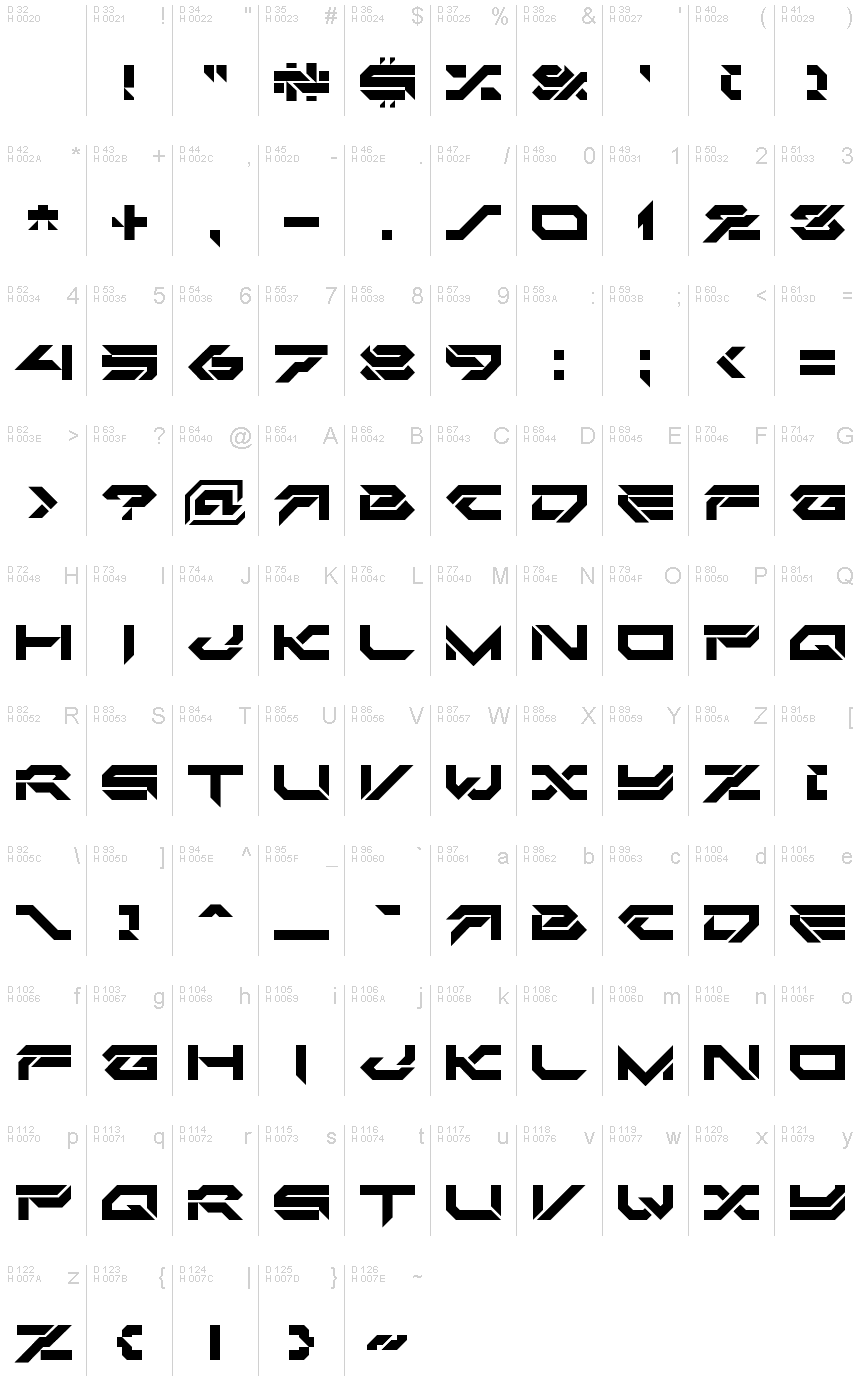
Critical Mass LDR Regular
Critical Mass LDR font is an extended techno typeface designed by MichaB Nowak.
Critical Mass LDR created by Michał Nowak (Neoqueto), 2014
Designer description: 12.11.2021 - updated with basic kerning and basic symbols and punctuation.